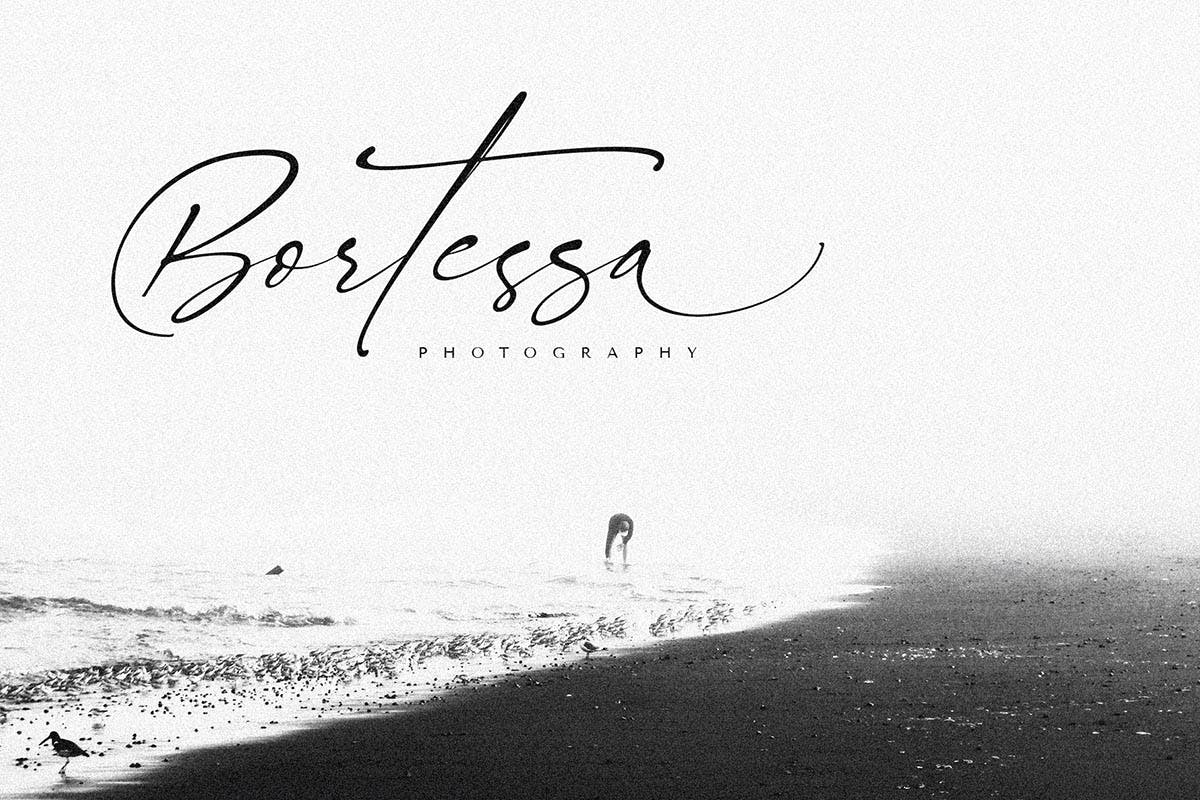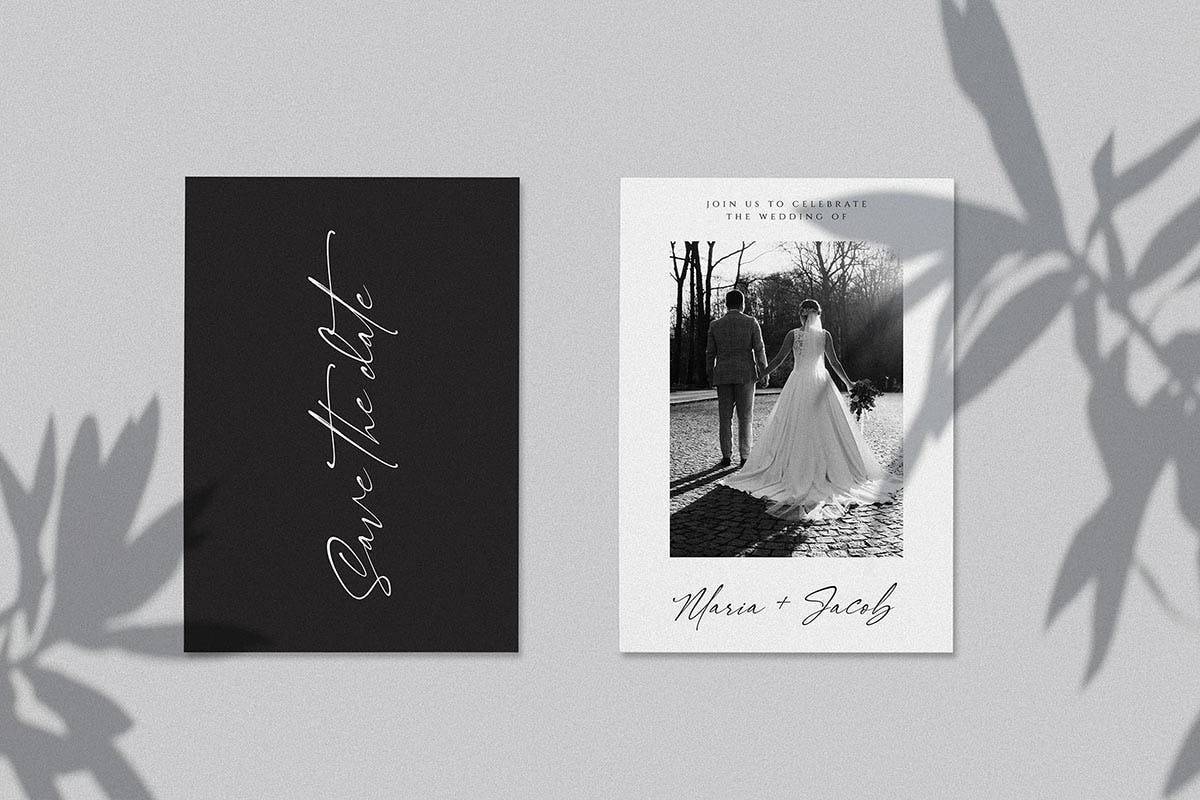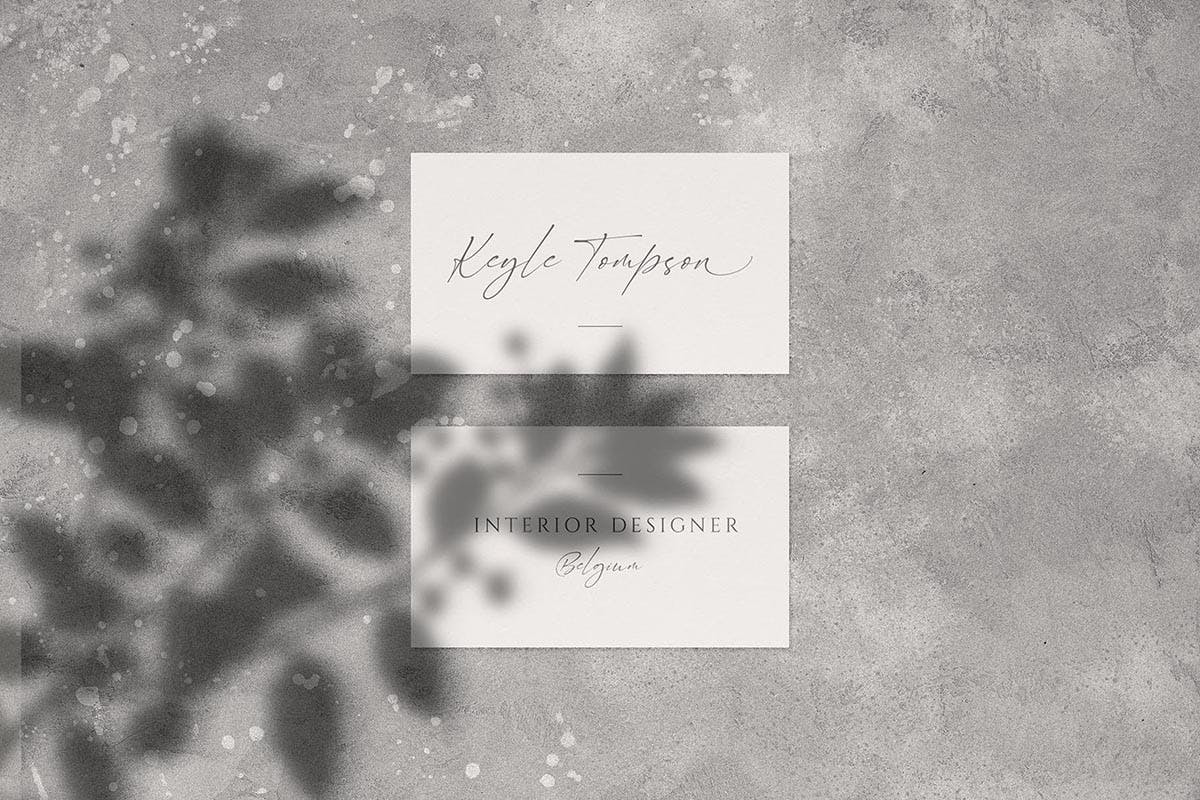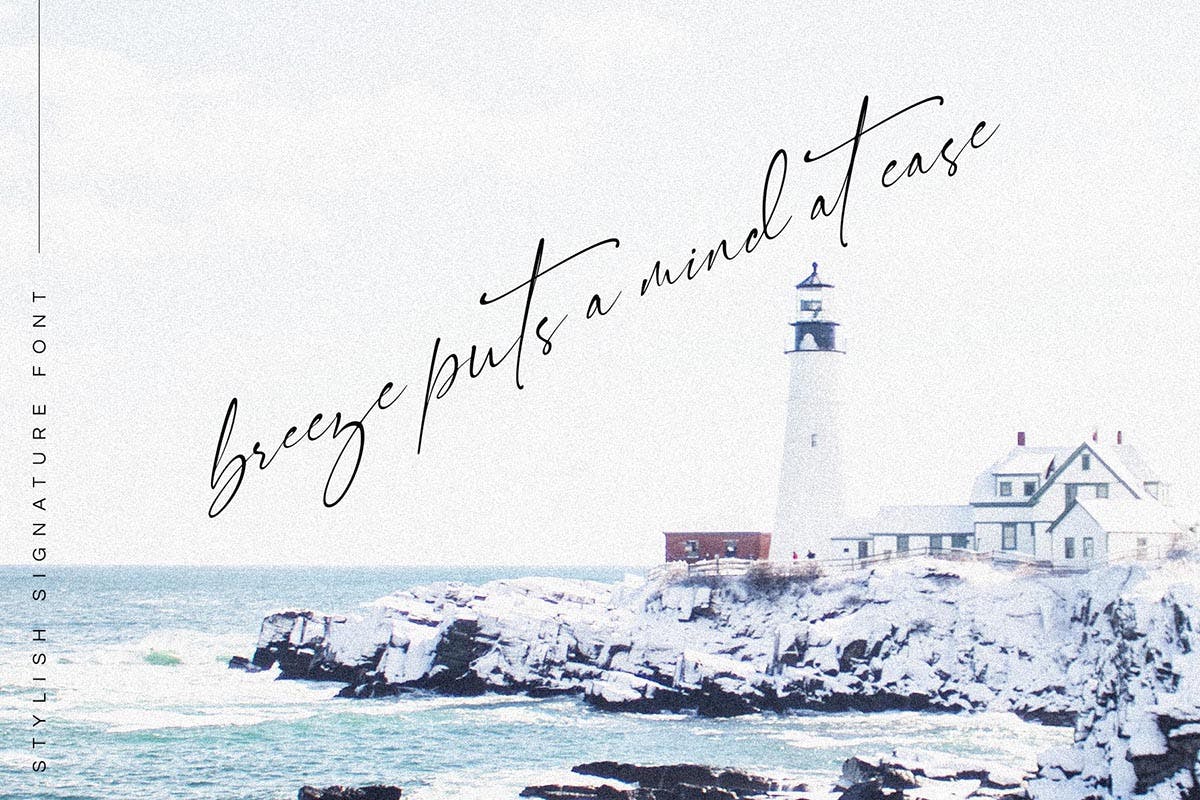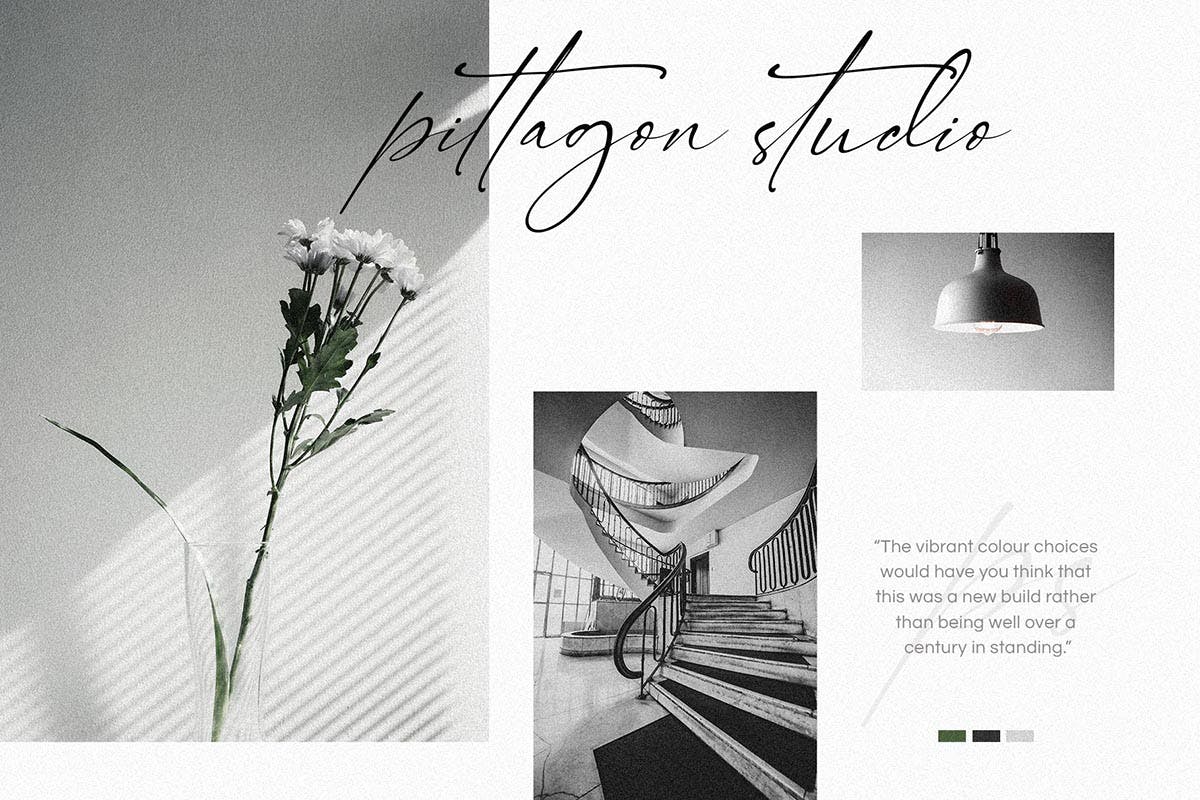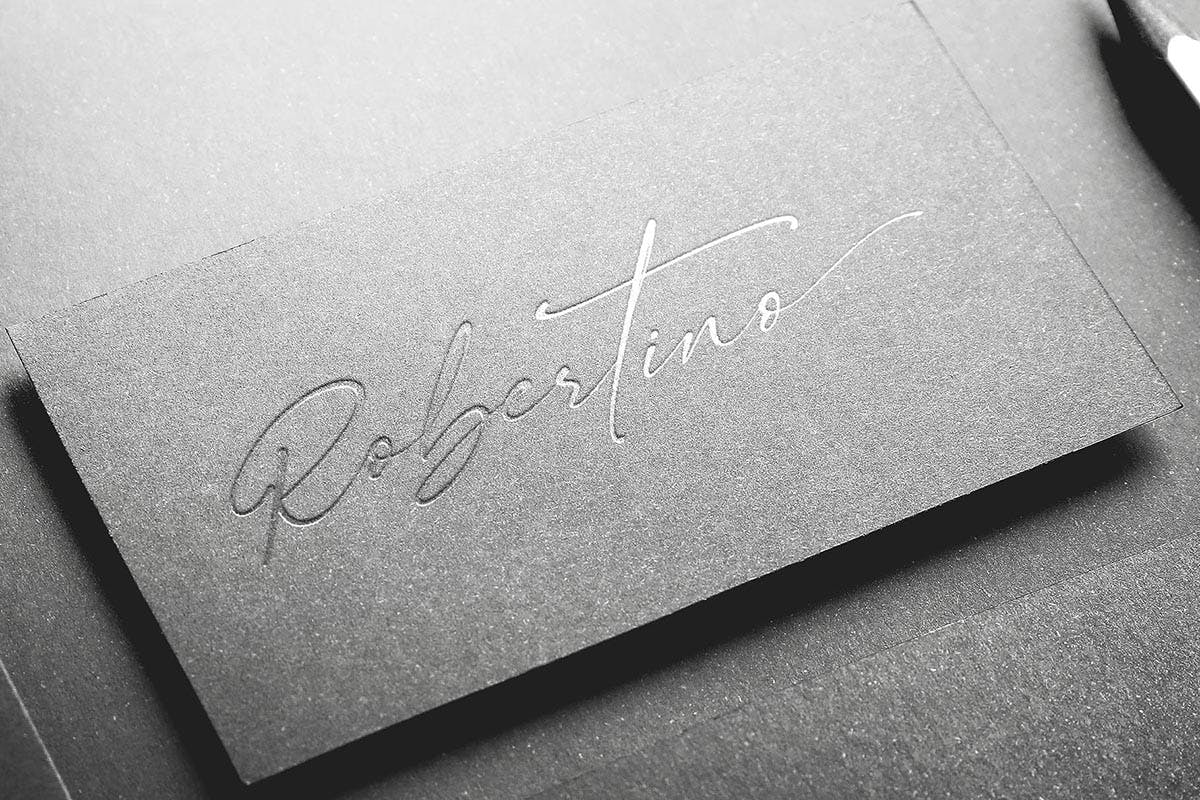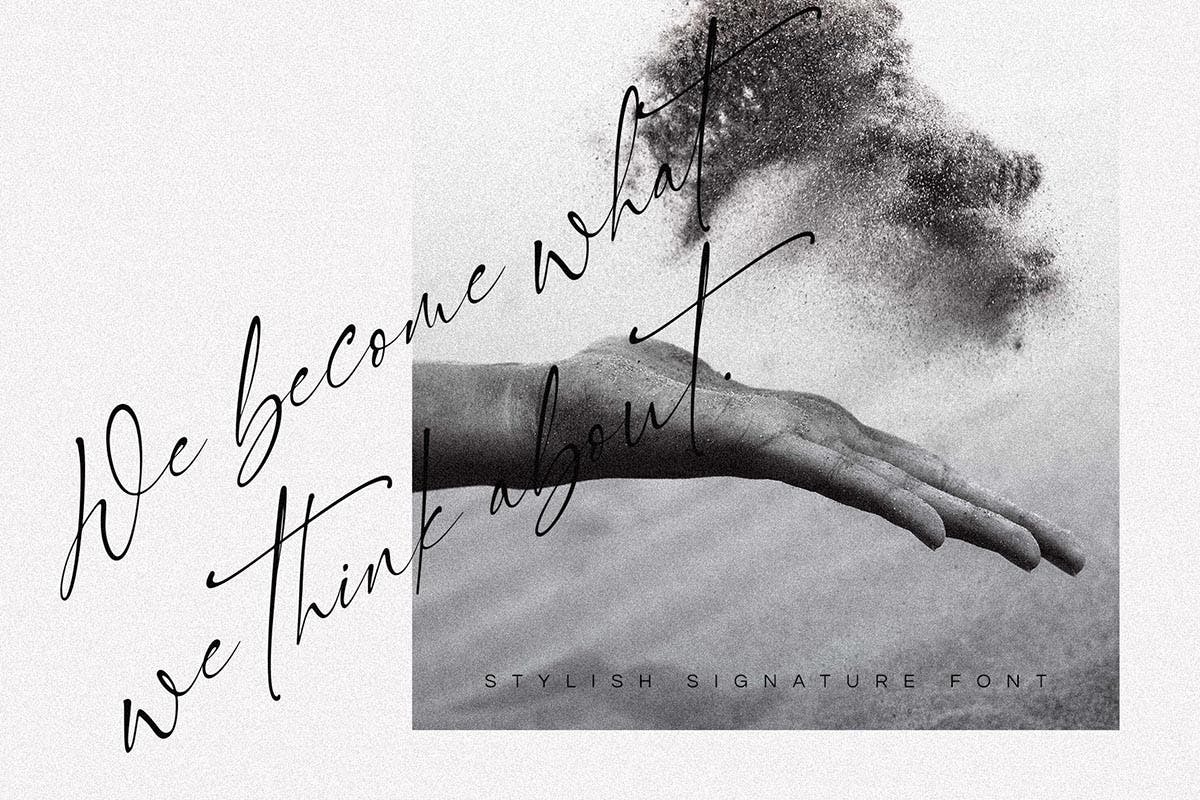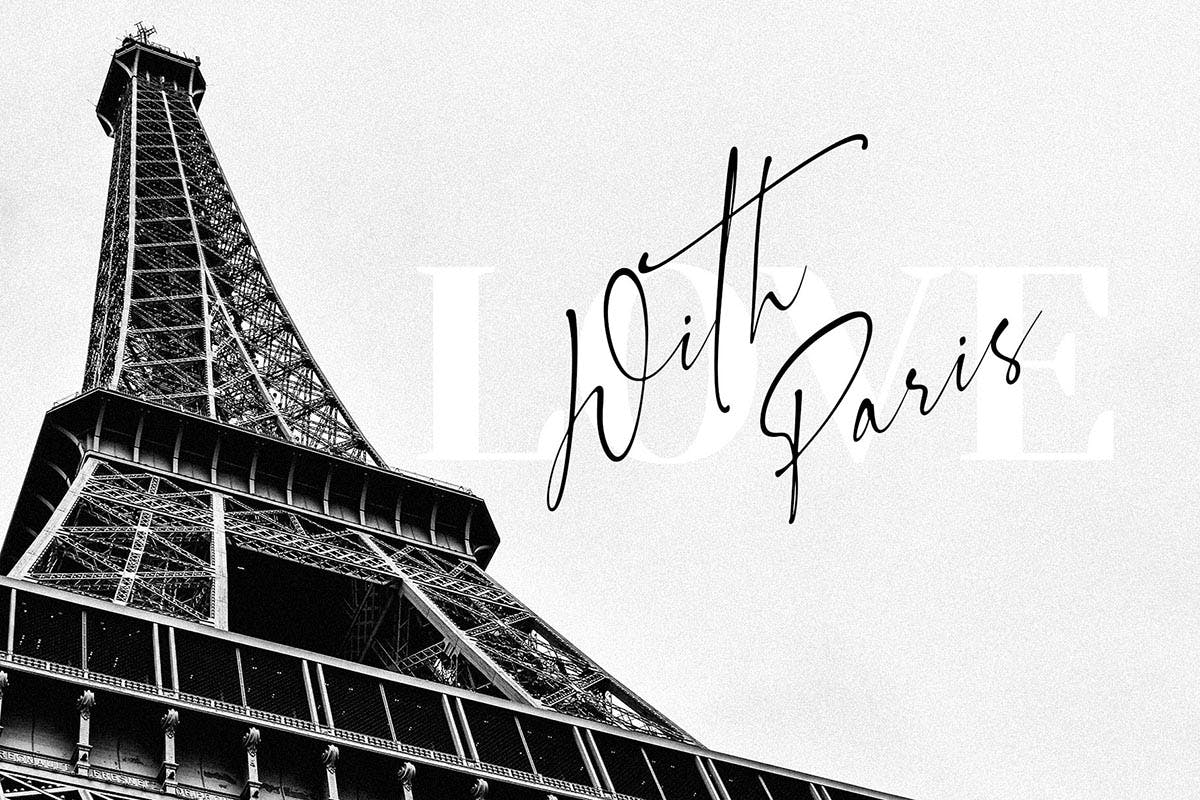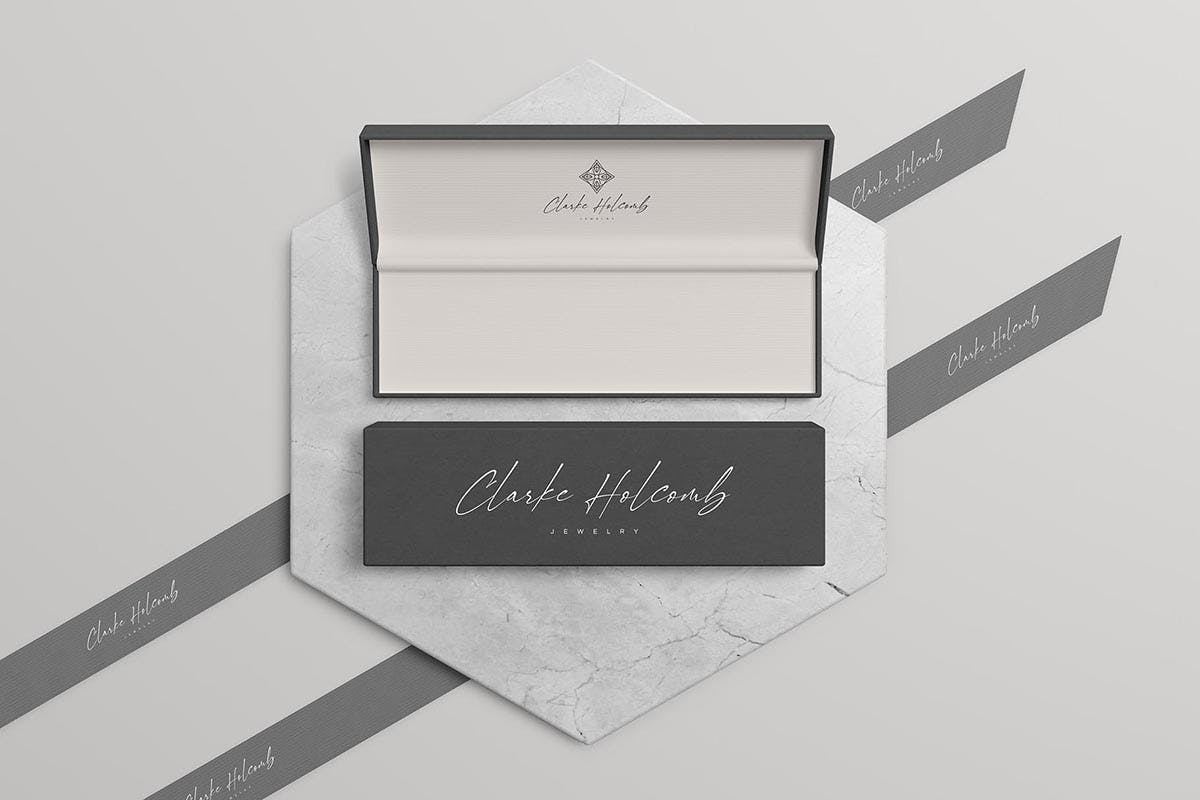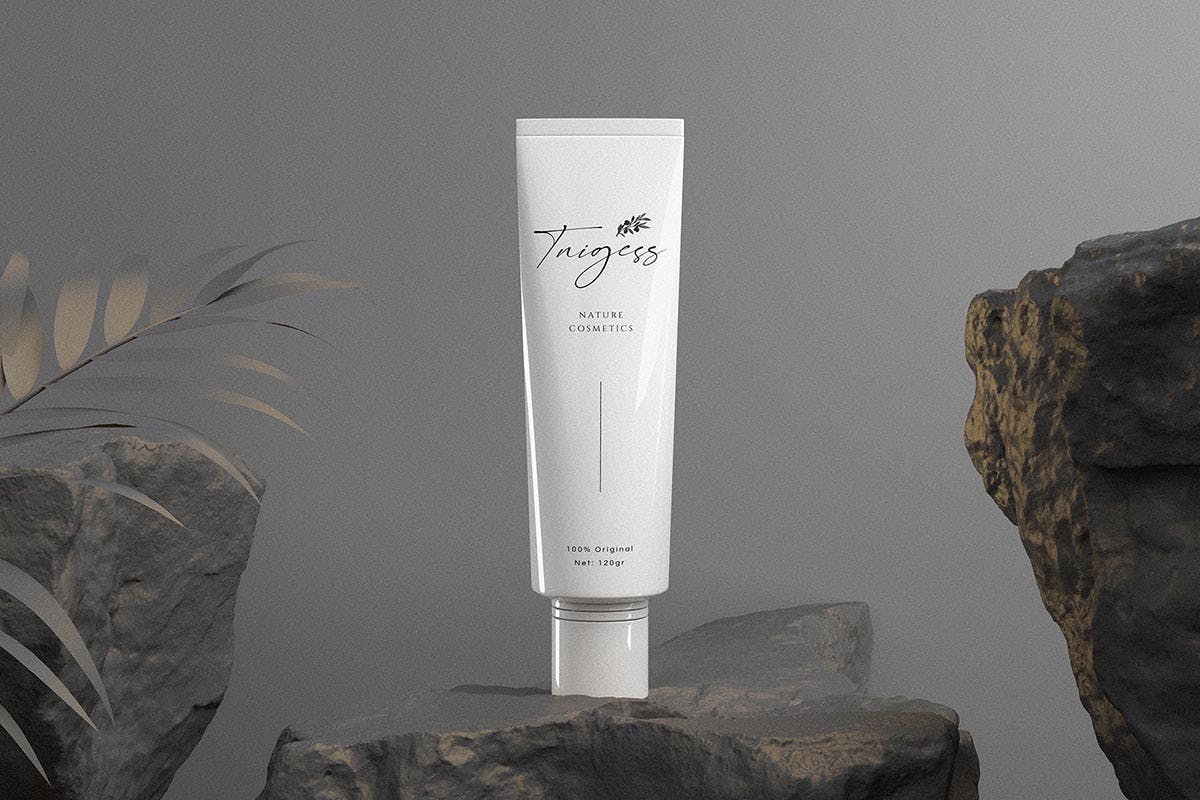
Free Signatie Stylish Signature Font
Free Signatie Stylish Signature Font is an awesome monoline font with a unique character. It is suitable for your works such as brand identity, packagings, posters, business cards, and more. This demo font is coming with two format files which are OTF and TTF that you can install on your devices. So, it is free to use on a personal project, but if you want to get more features, go buy the premium version.